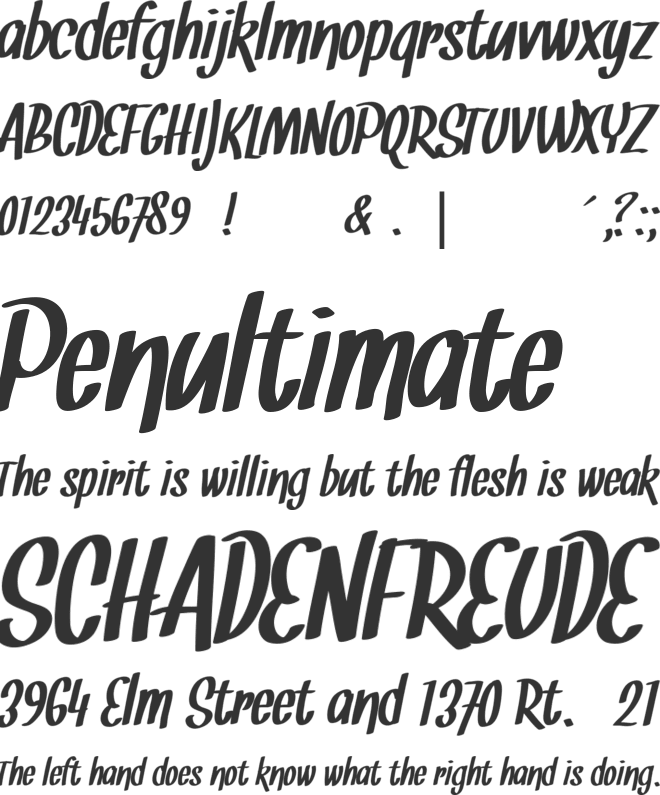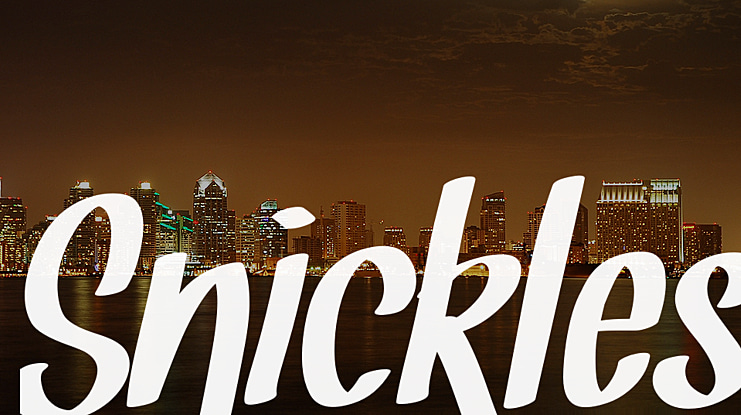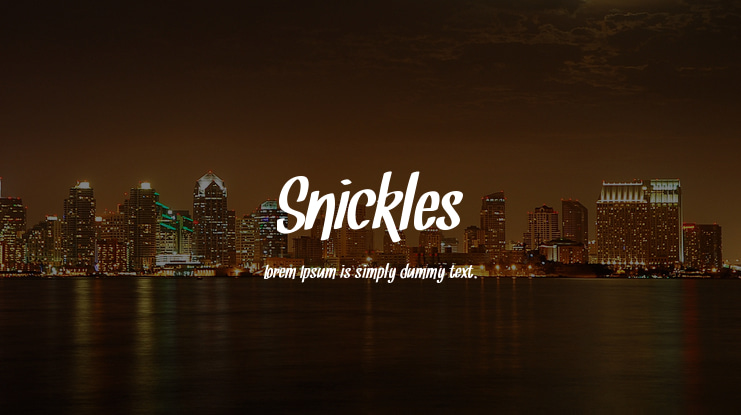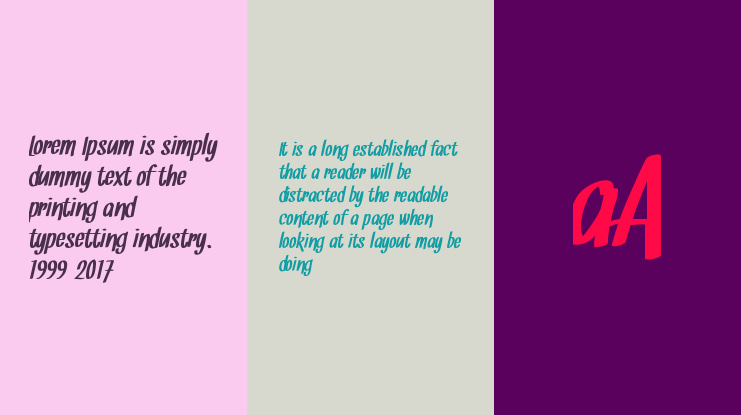
Snickles Font
Tup Wanders
...and another font made in one night. Looks like the kind of font a shopkeeper would make with a marker to sell smelly fish and stale bread. I noticed 'Beter Bed', a dutch furniture maker uses this on all its folders.
Typeface by Tup Wanders. 2009